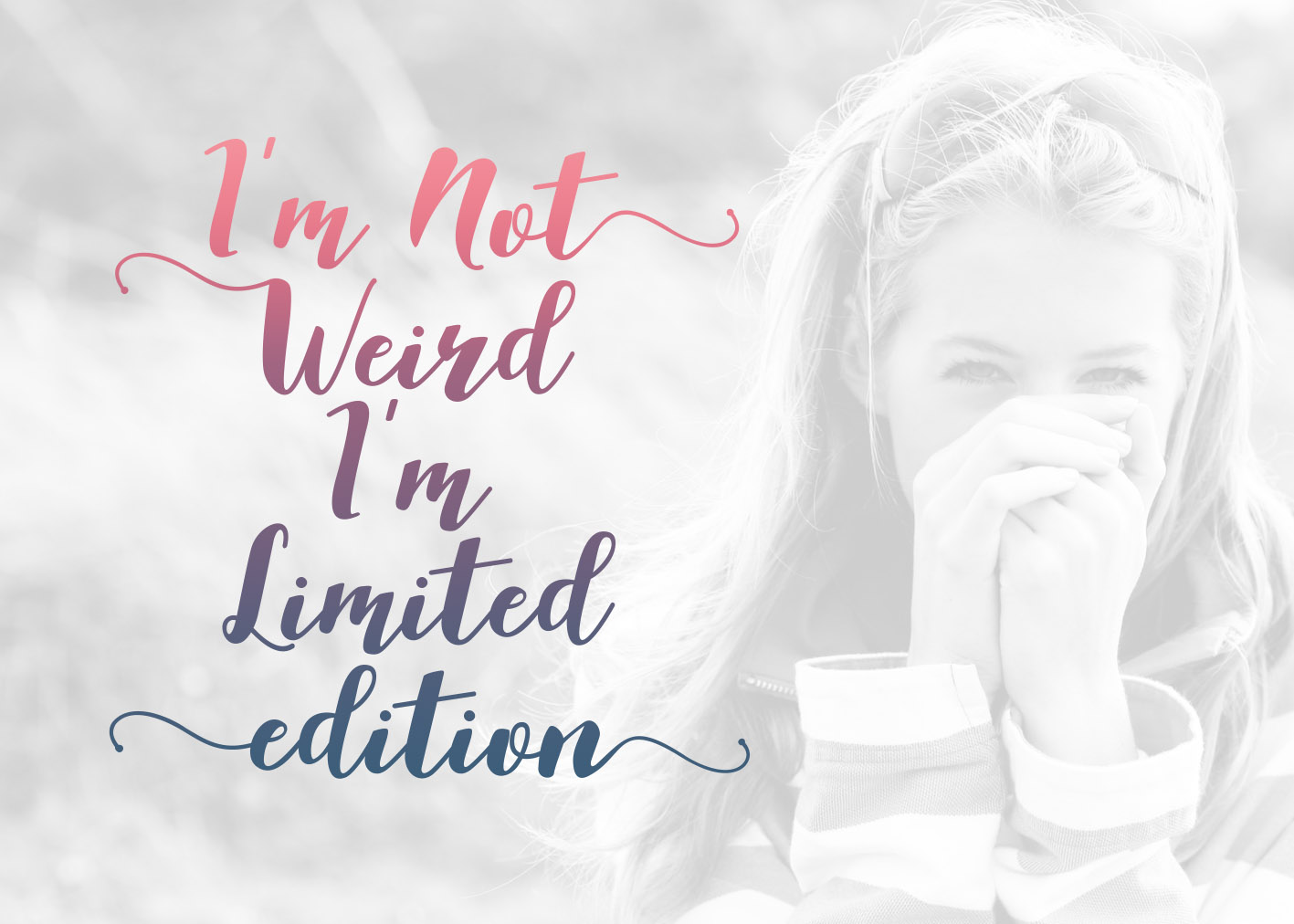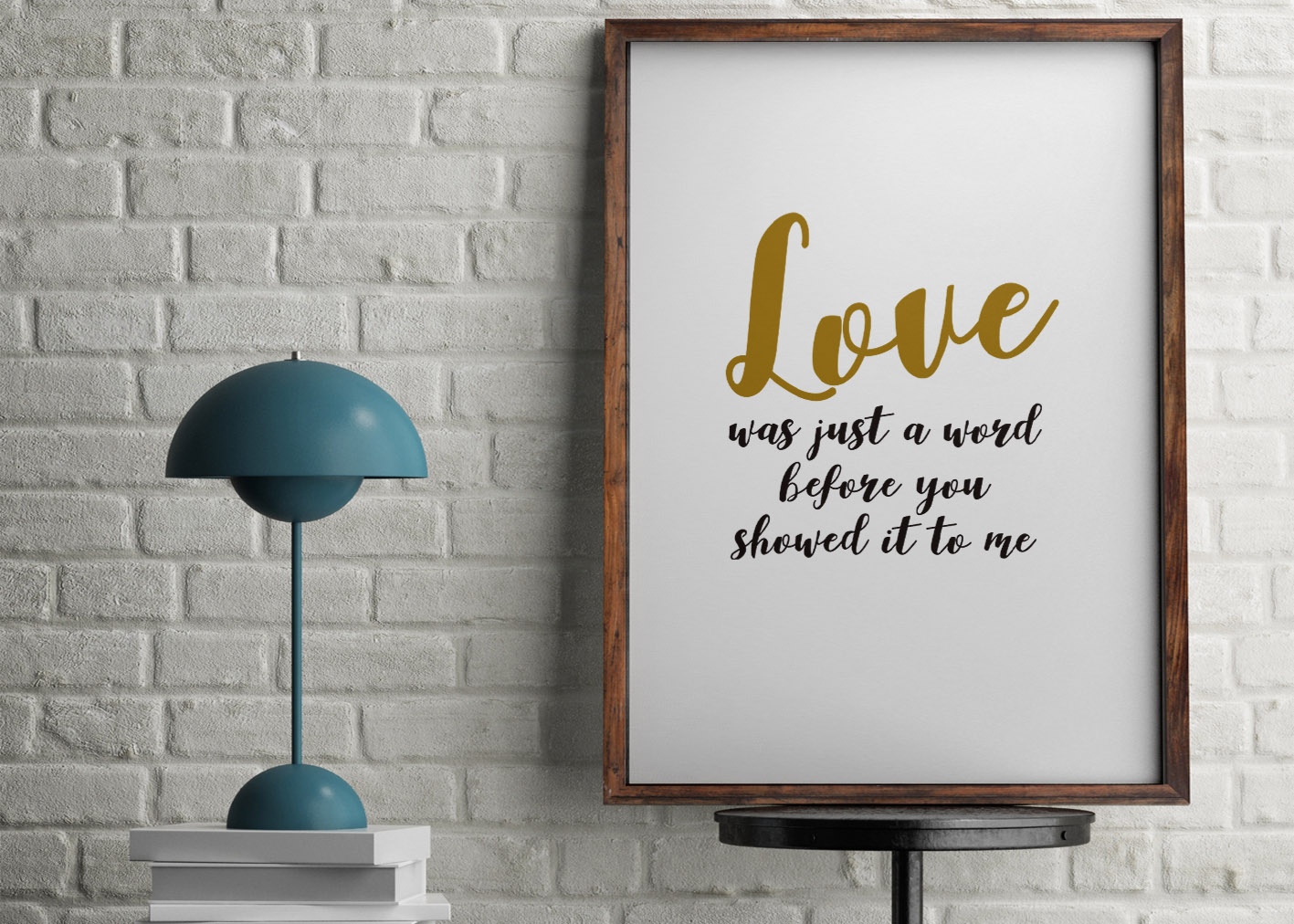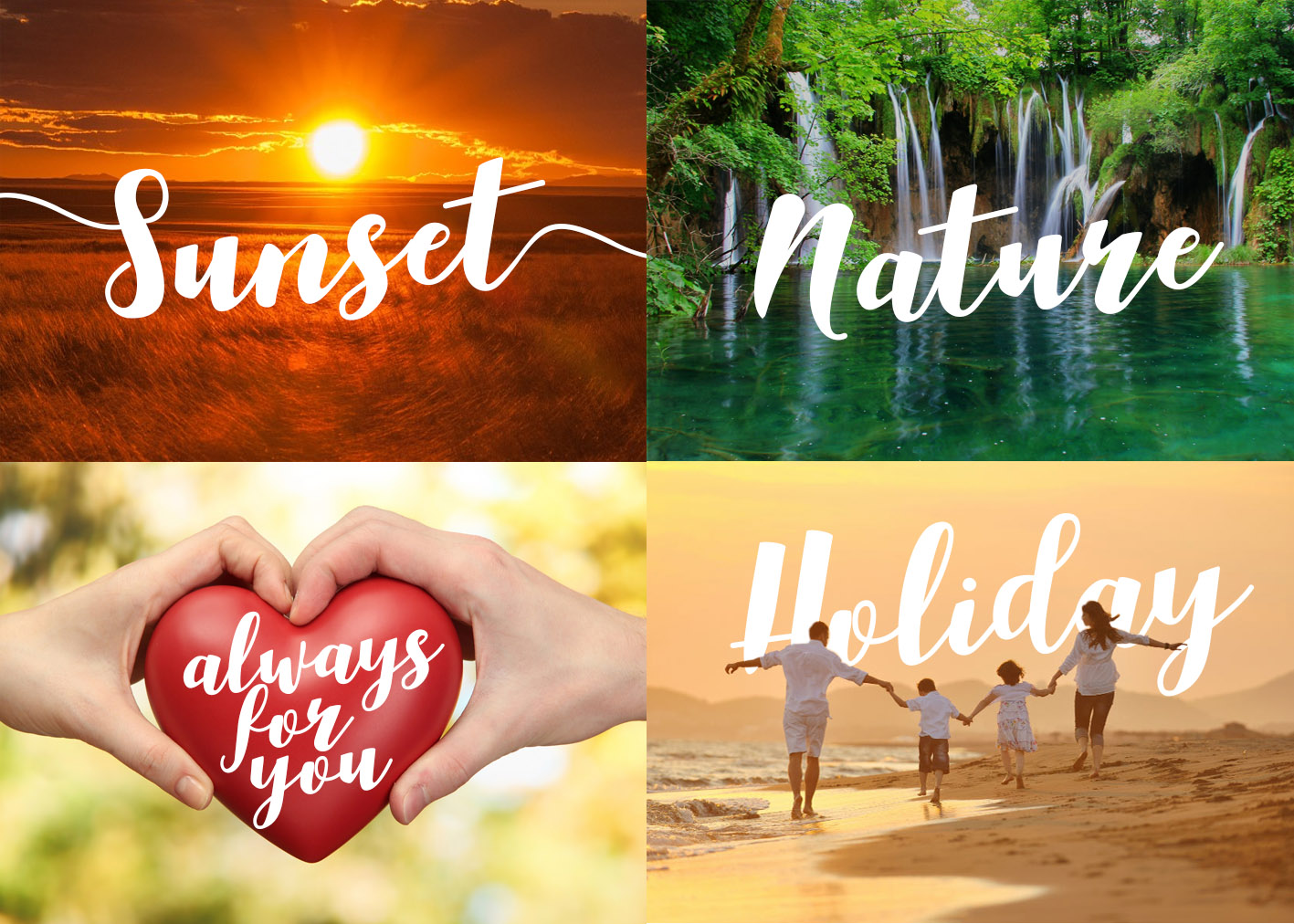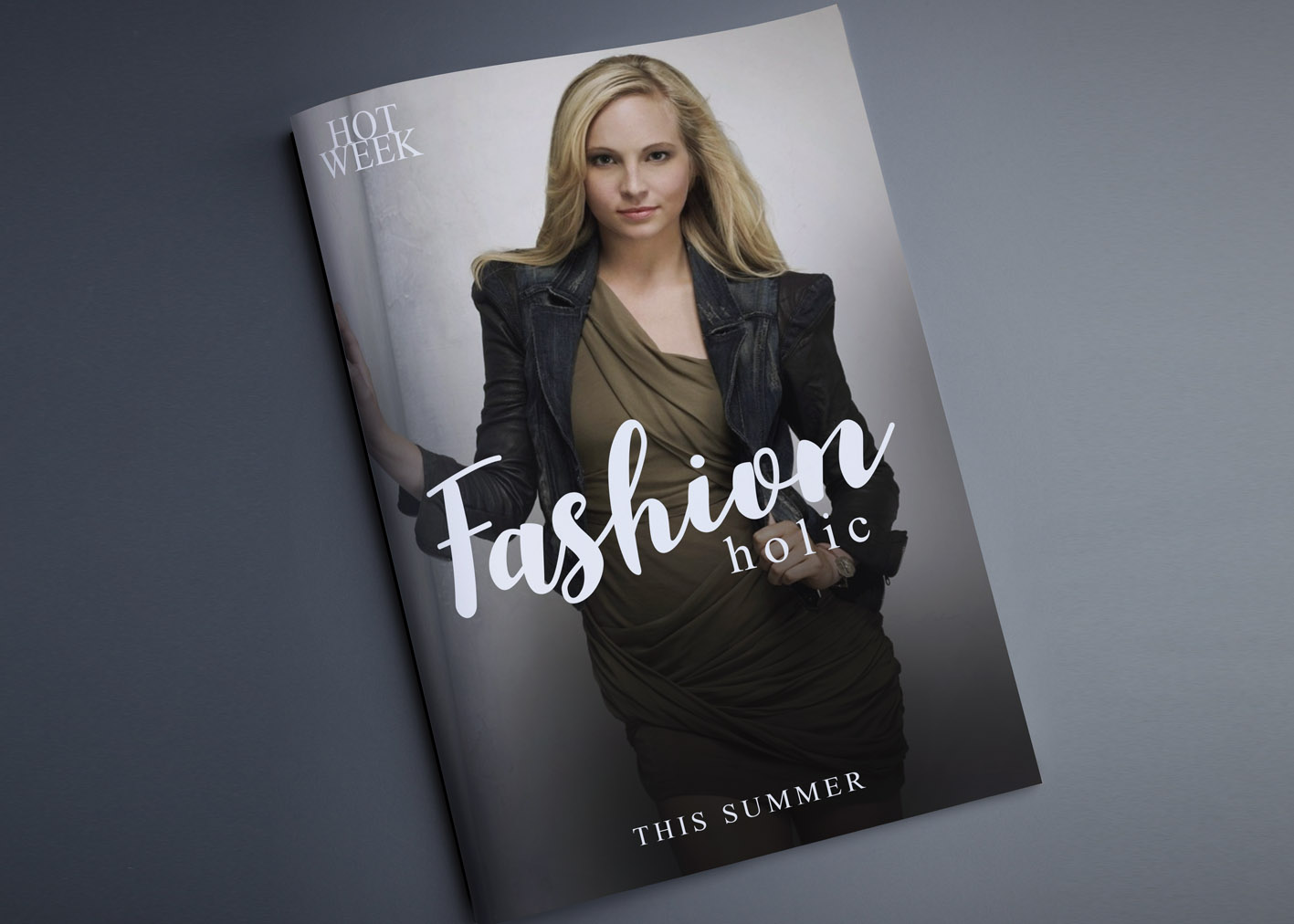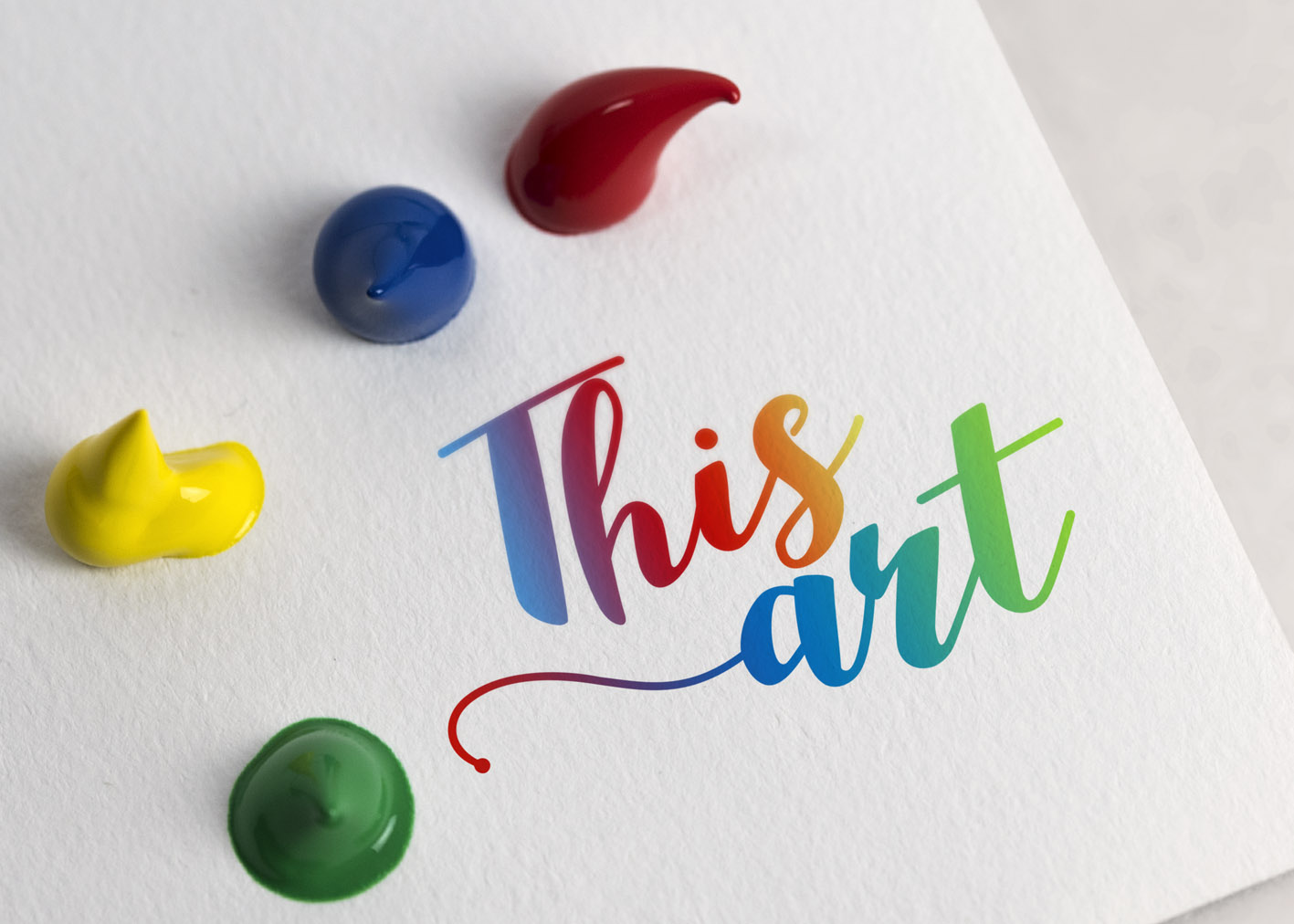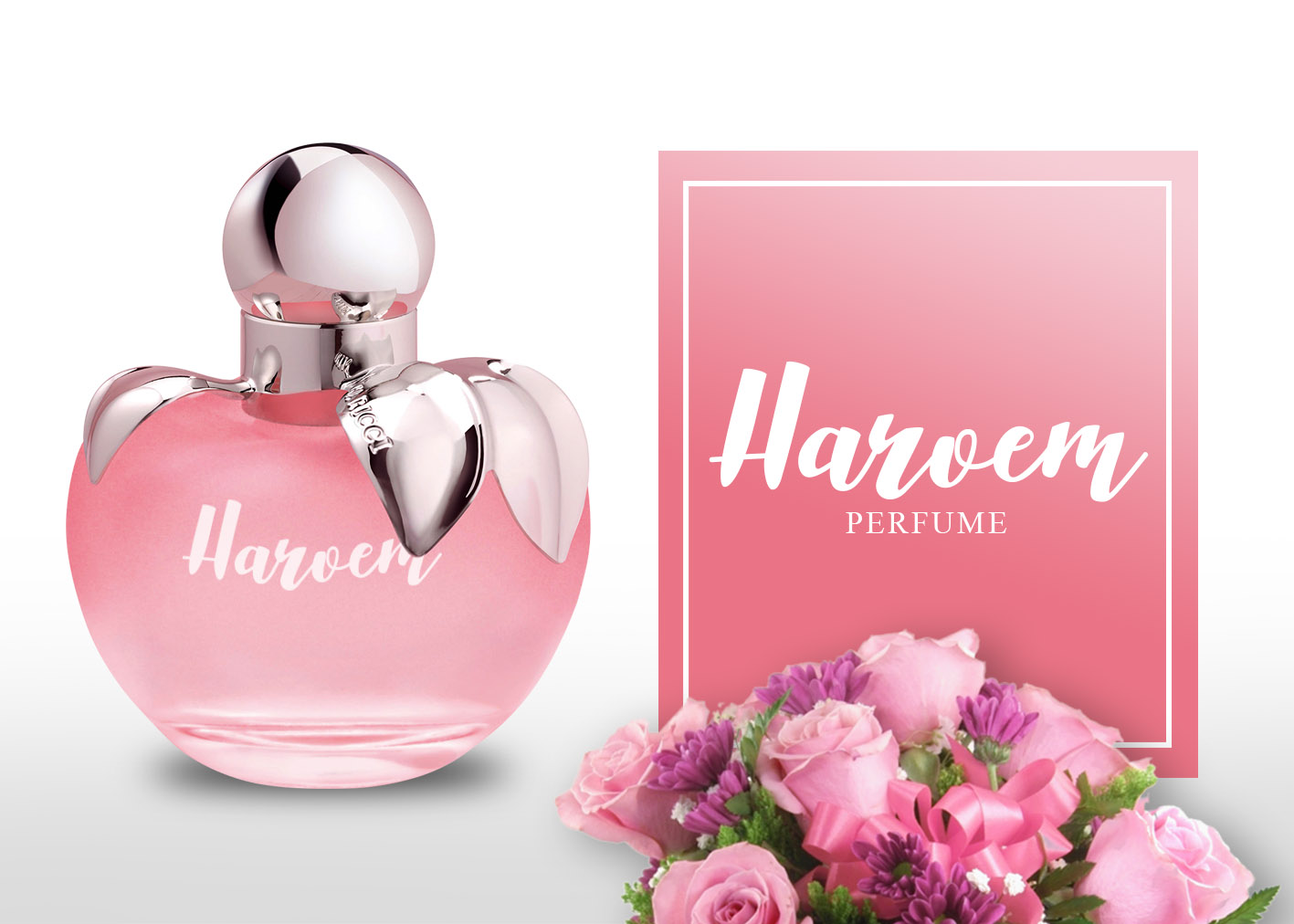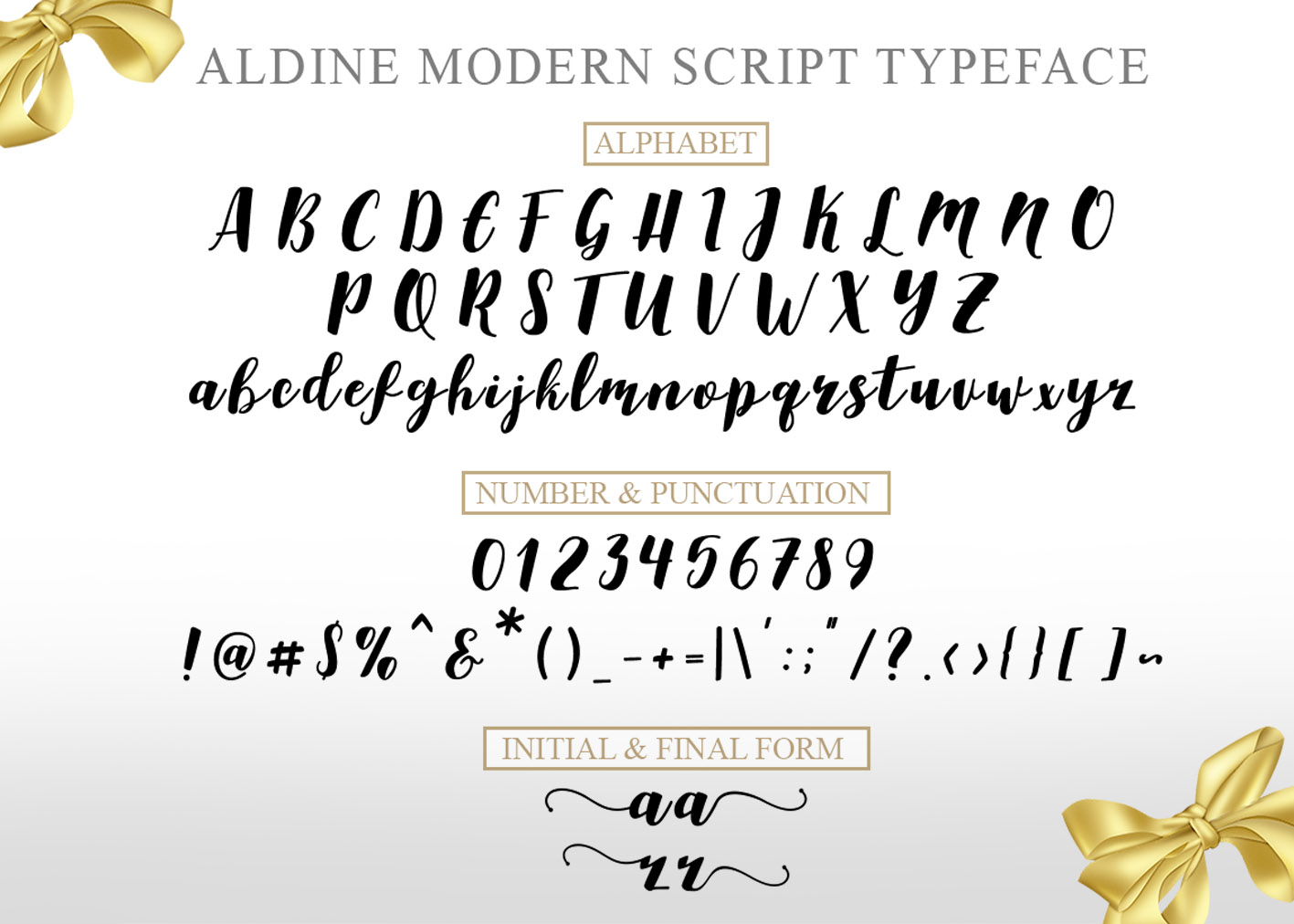
Aldine Font
About Aldine Font
Aldine Script is a fresh modern font.
This font is completely handmade and perfect for wedding invites, cards & signs and other projects that need a personal touch.